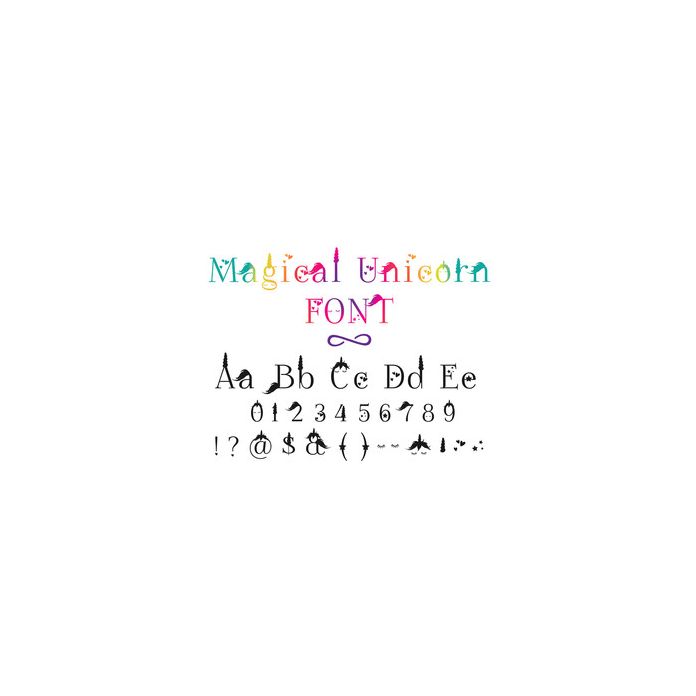
Magical Unicorn Font. Hand drawn font, including upper and lower case letters, numbers and glyphs all with magical unicorn touches!. For more design ideas, coordinating designs & products and inspiration, please visit my blog http://www.sarahhurleyblog.com